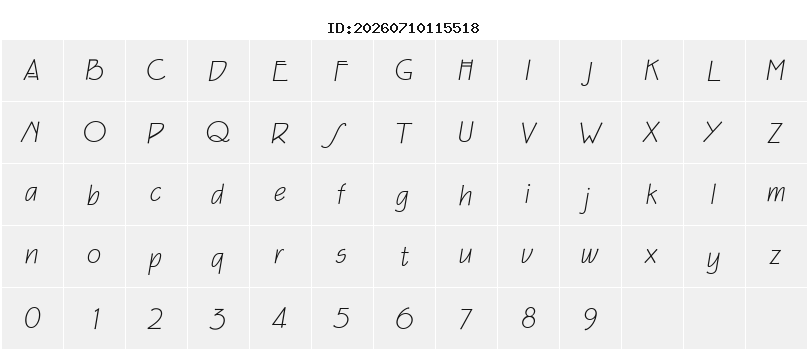
About EaglefeatherInformal-Lig.ttf
EaglefeatherInformal-Lig.ttf is a modern, elegant sans-serif font designed for ultimate readability and visual harmony. Perfect for branding, headlines, web design, and print materials.